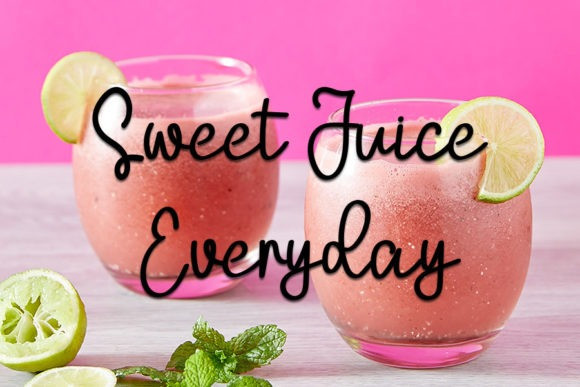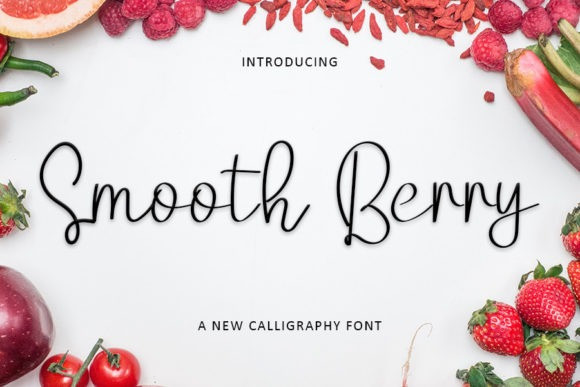
Smooth Berry Font
Smooth Berry Script Font is a lovely script font featuring charming, playful characters that seem to dance along the baseline. Add this font to your most creative ideas, and notice how it makes them stand out!